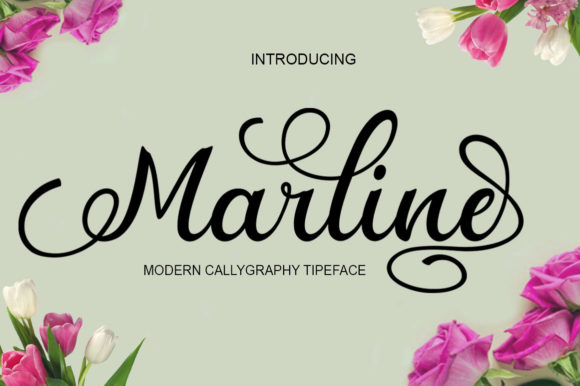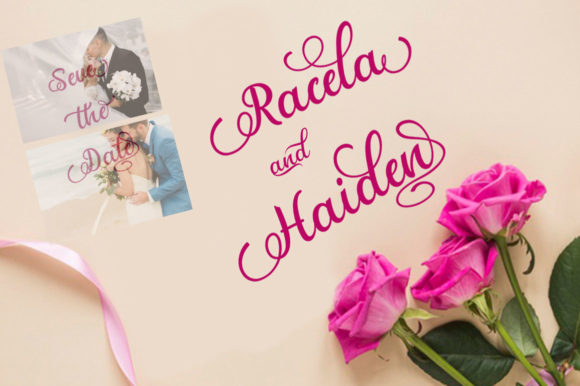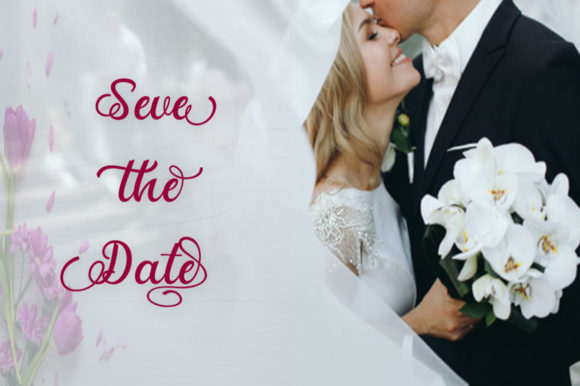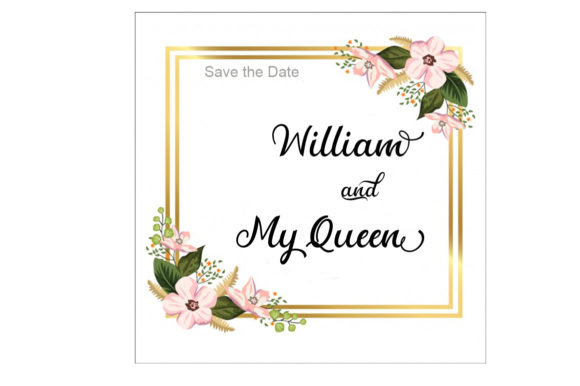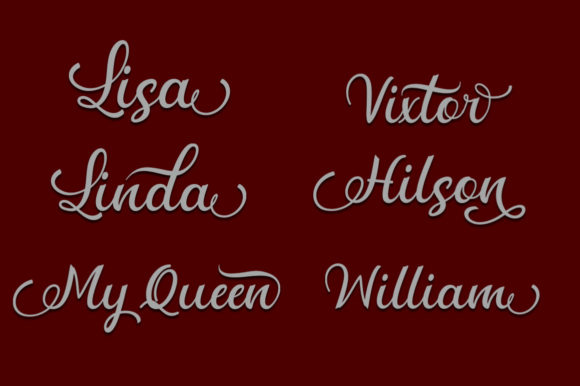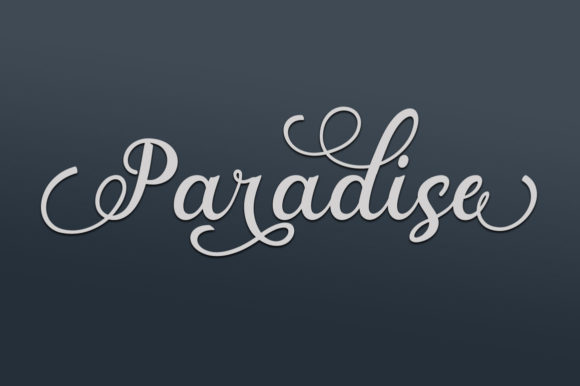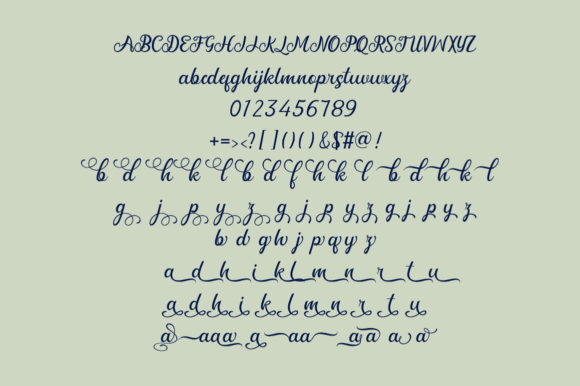
Marline Font
About Marline Font
Marline is a beautiful handwritten font with a unique charm. Fall in love with its bold swashes, and turn any design project into a stand out.